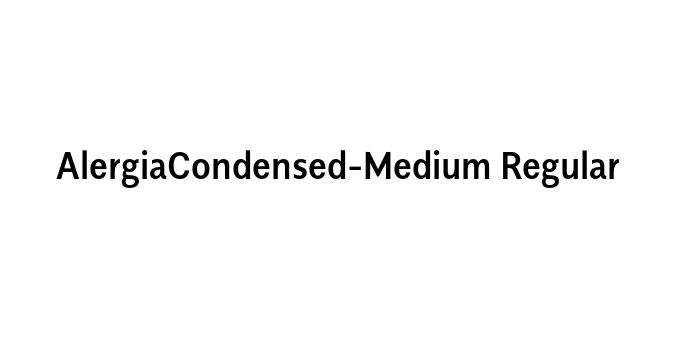
AlergiaCondensed-Medium Regular
Designed by Mateusz Machalski
Alergia Condensed Medium Regular is a sophisticated part of the extensive Alergia font family, meticulously crafted by renowned Polish type designer Mateusz Machalski. This typeface is a unique hybrid that blends the functional aesthetics of grotesque sans-serifs with the geometric precision of modern design. The Medium weight provides a robust presence while maintaining high legibility, making it an excellent choice for designers looking to balance character and clarity in narrow spaces.
Released through the Borutta Group, Alergia was designed to offer versatility across various media platforms. It features a rich set of stylistic alternates and a wide character map, allowing for creative flexibility in editorial and branding projects. Its condensed nature is particularly effective in high-density information environments, ensuring that text remains readable even when horizontal space is extremely limited.
AlergiaCondensed-Medium Regular Best Uses
Perfect for magazine layouts and newspaper headlines where space is at a premium.
Ideal for creating strong, modern visual identities for corporate or creative brands.
Excellent for navigational menus and mobile-responsive headers.
High-impact for posters, flyers, and digital display ads.